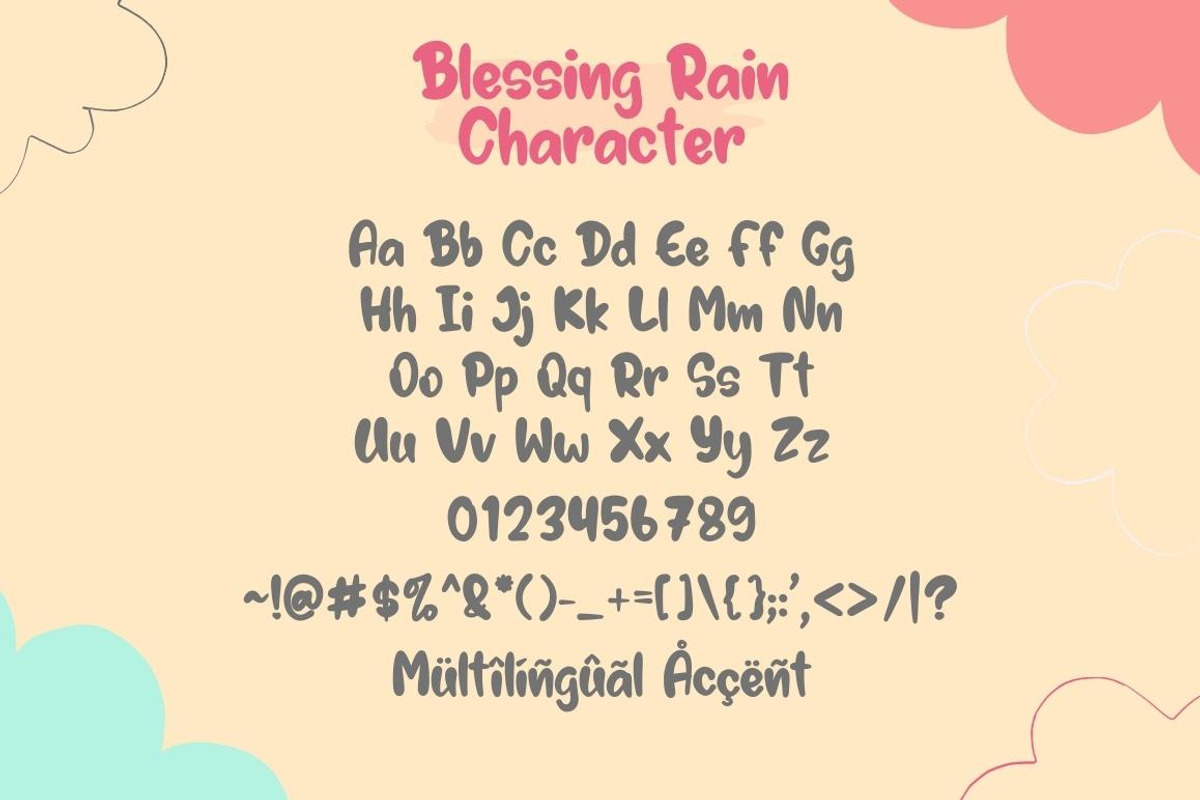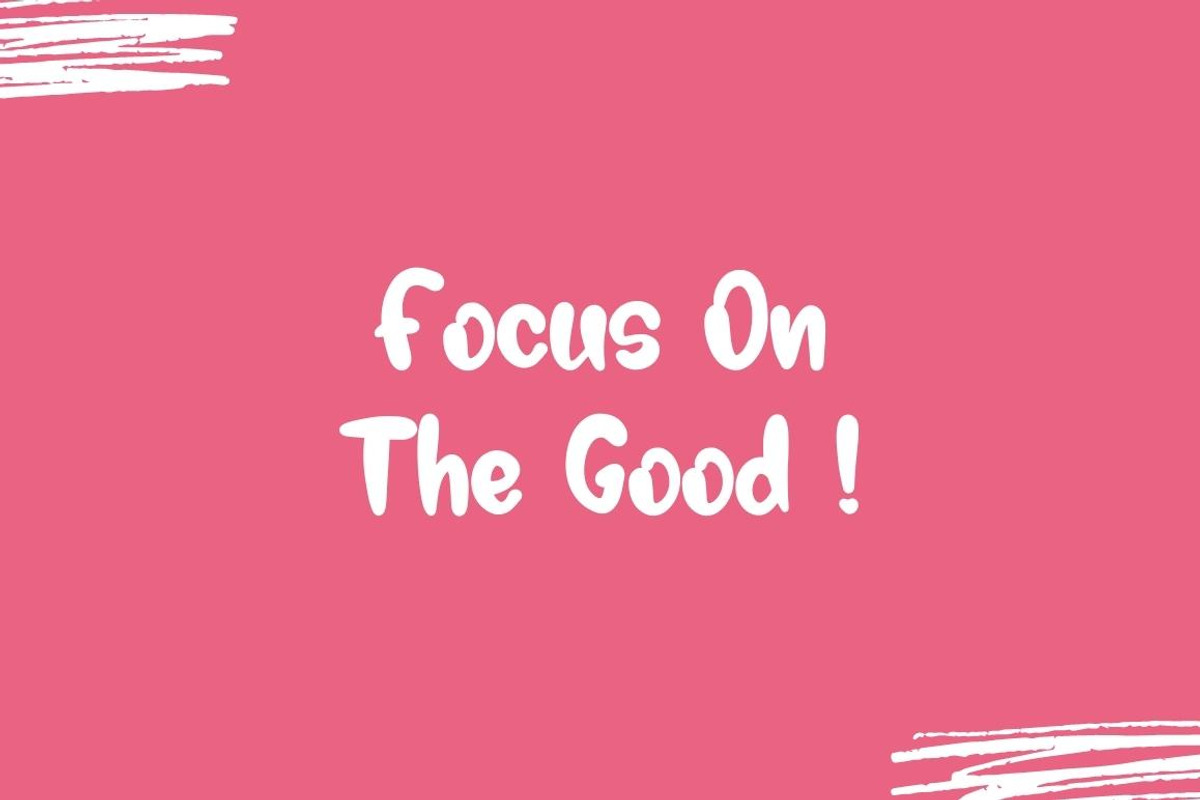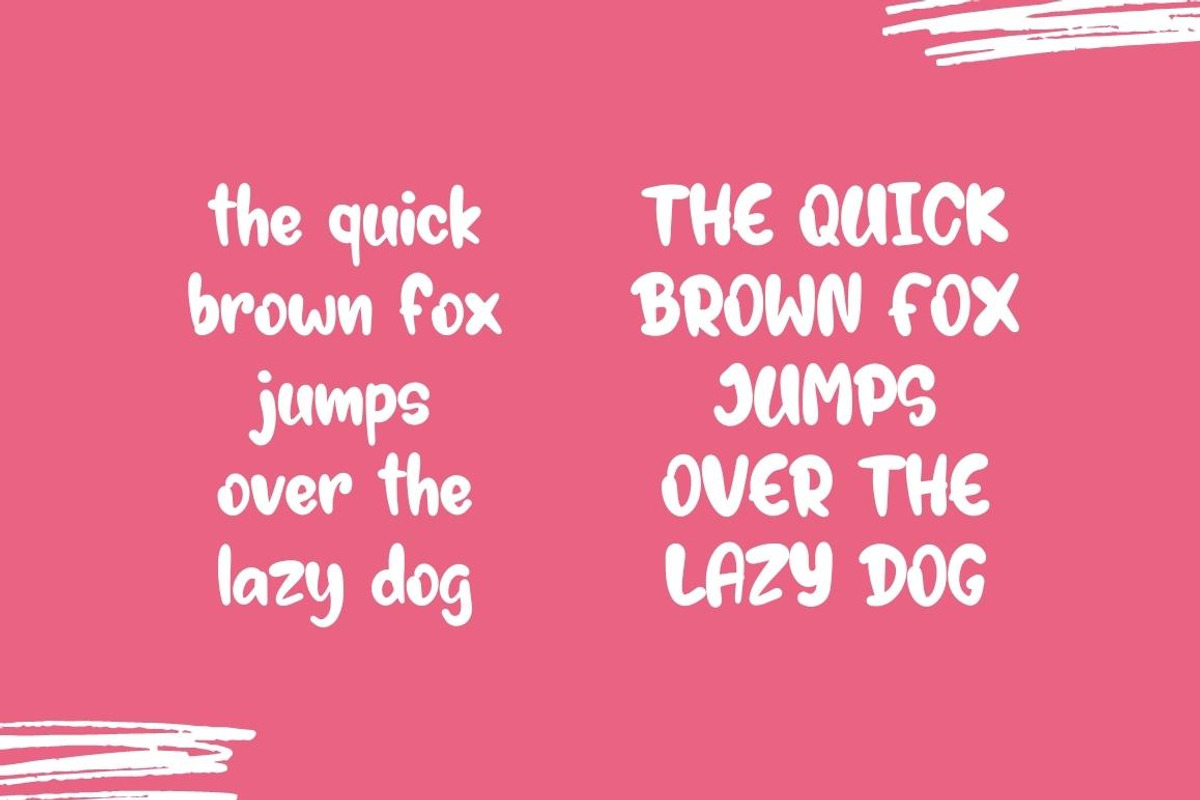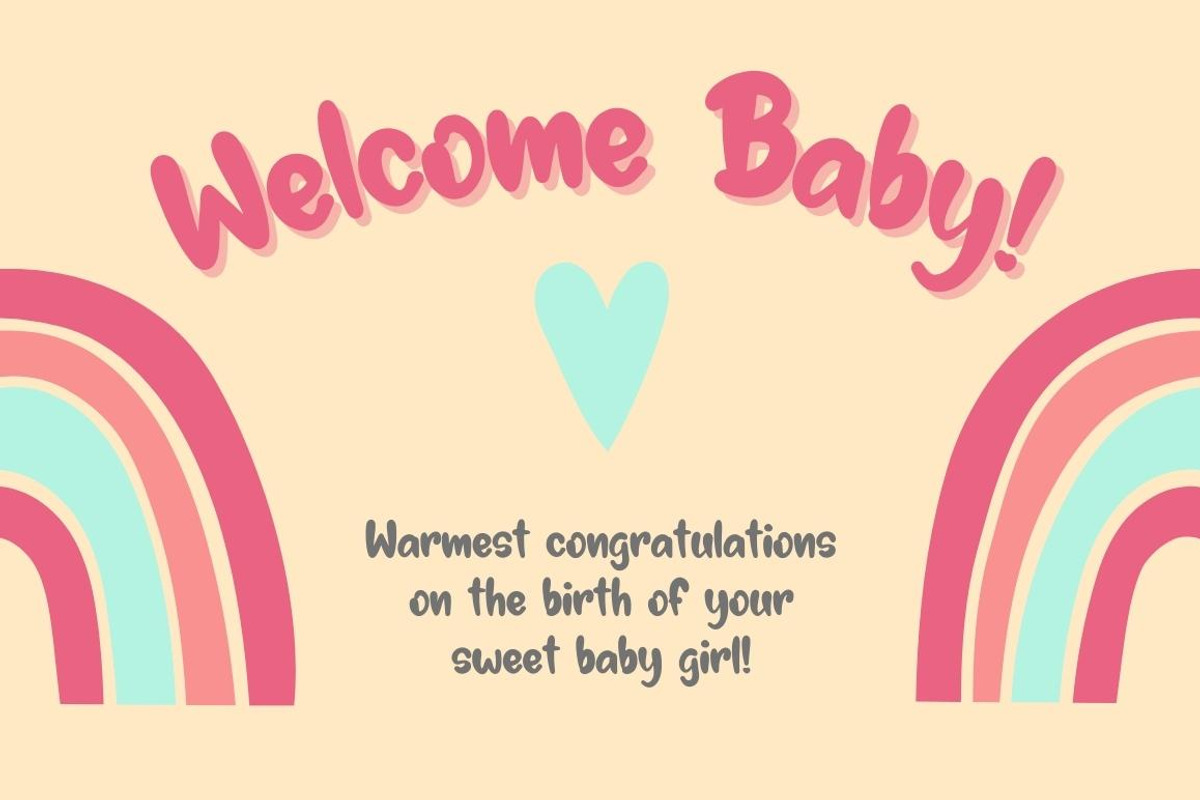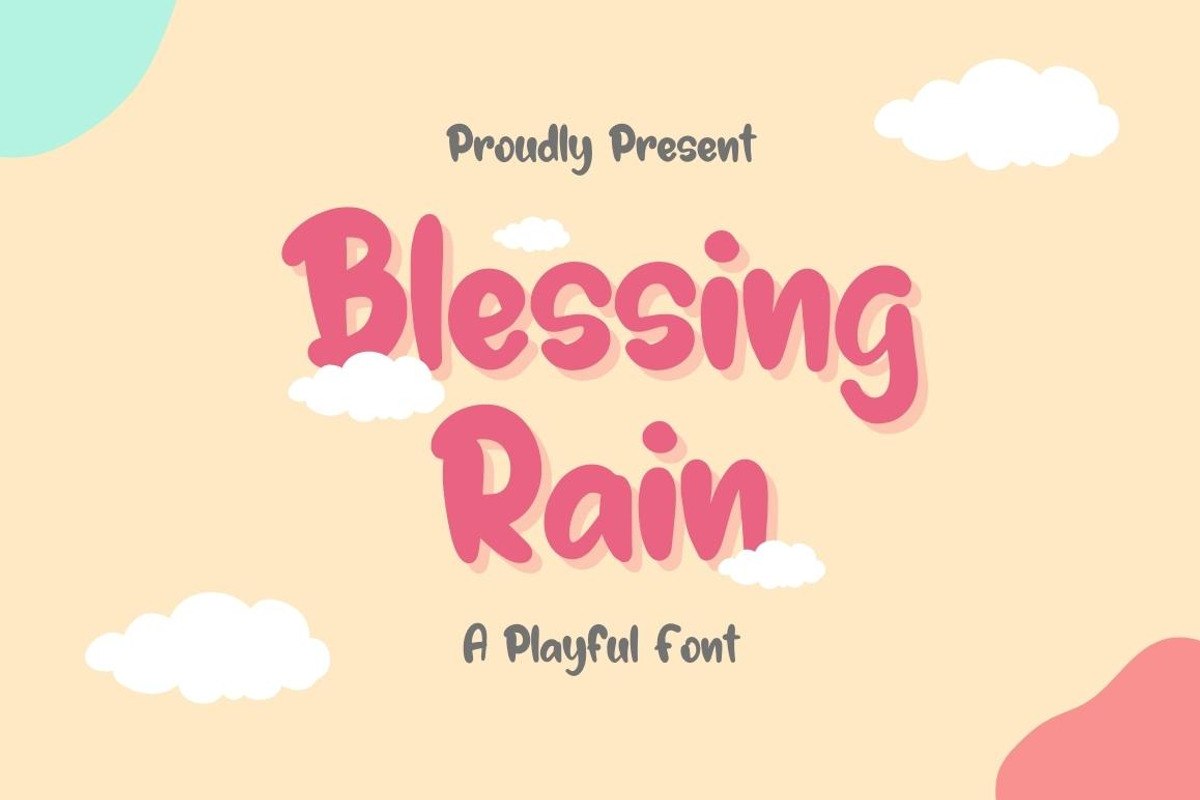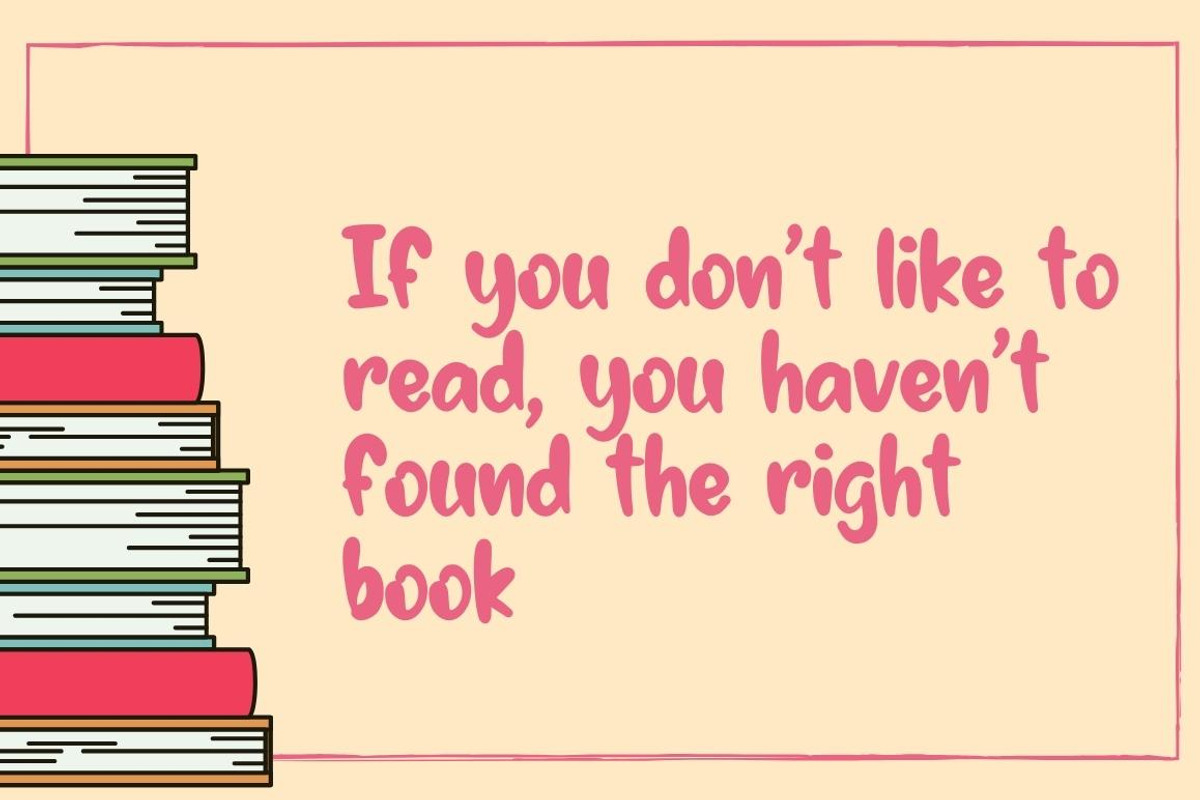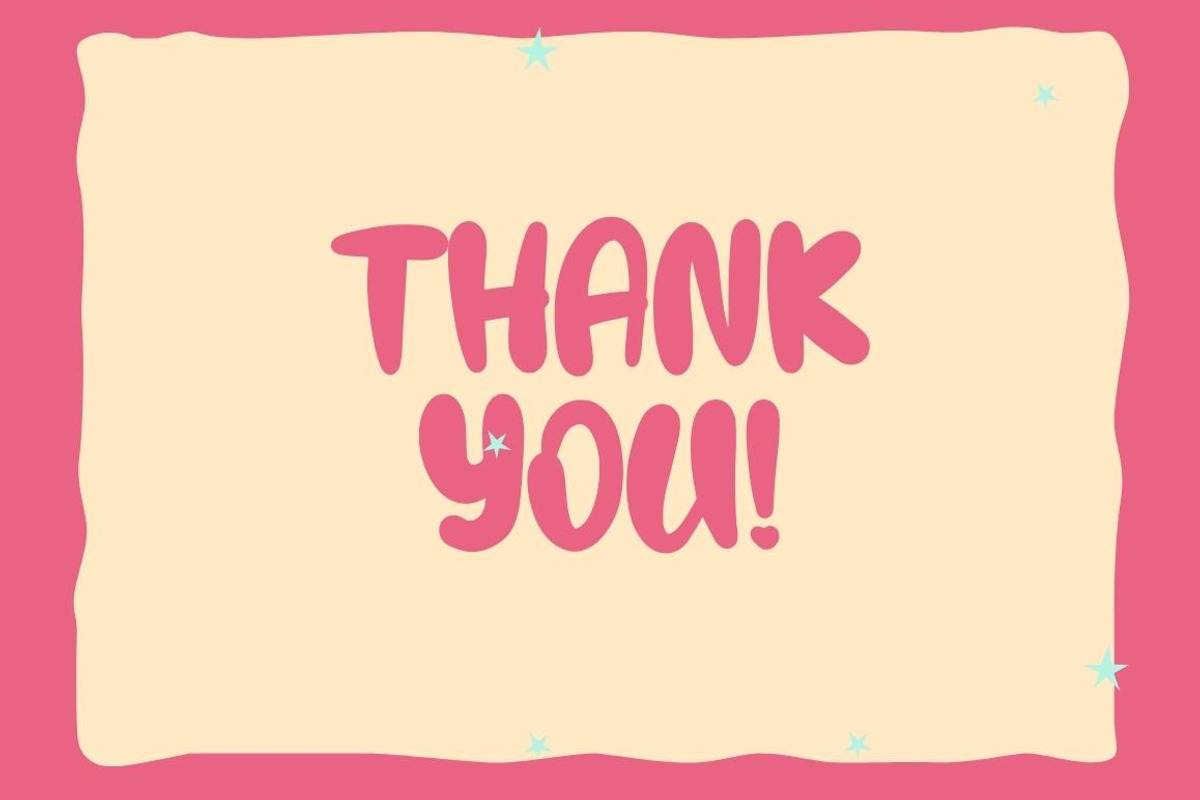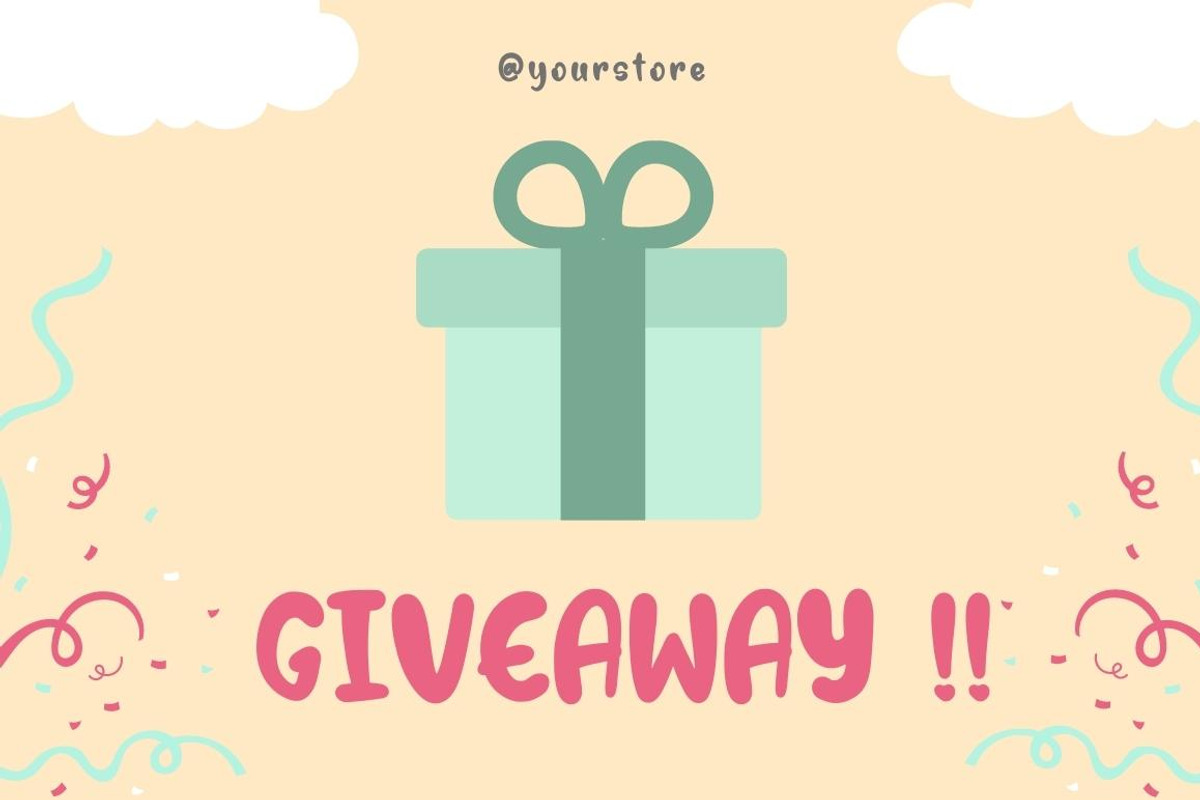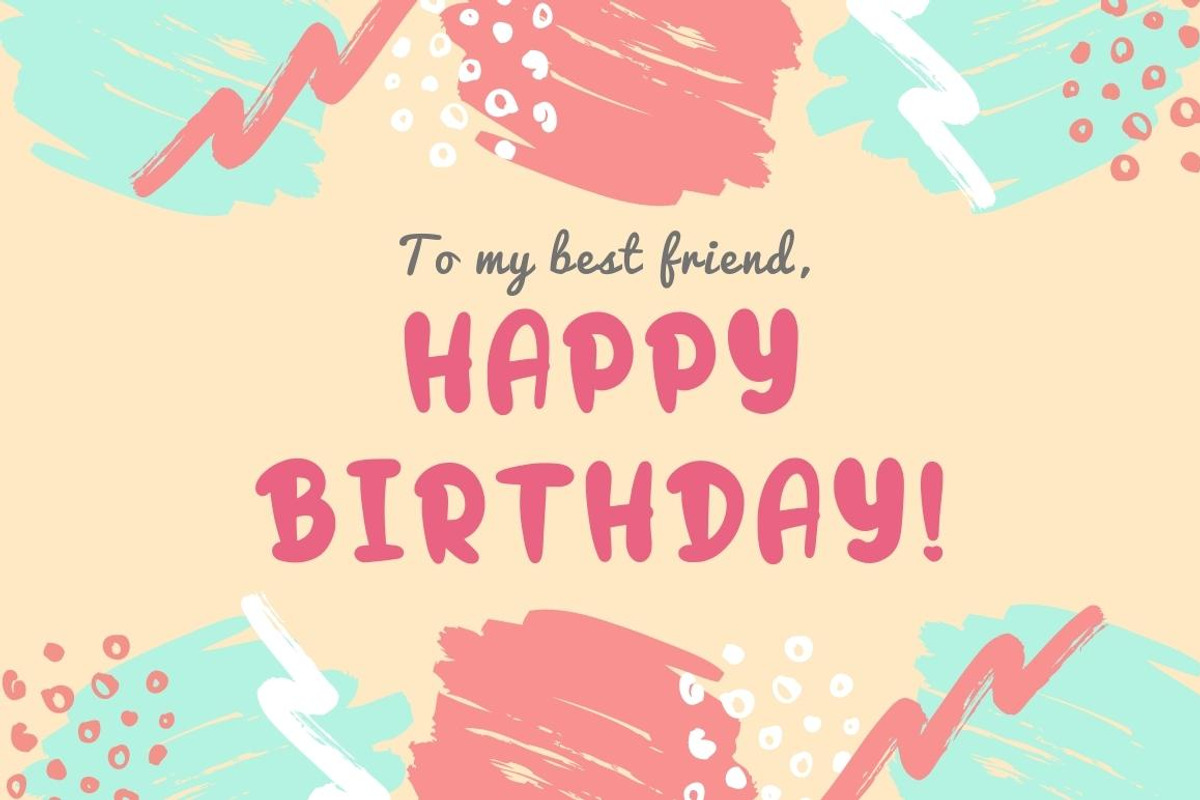
Blessing Rain - Playful Handwritten
Blessing Rain is a Playful Display font that will make your designs look unique and fun. It's perfect for labels, quotes, posters, DIY projects, branding, packaging, greeting cards, websites, photography overlays, signs, window art, scrapbooking, tags and so much more!
- Multilingual Accent